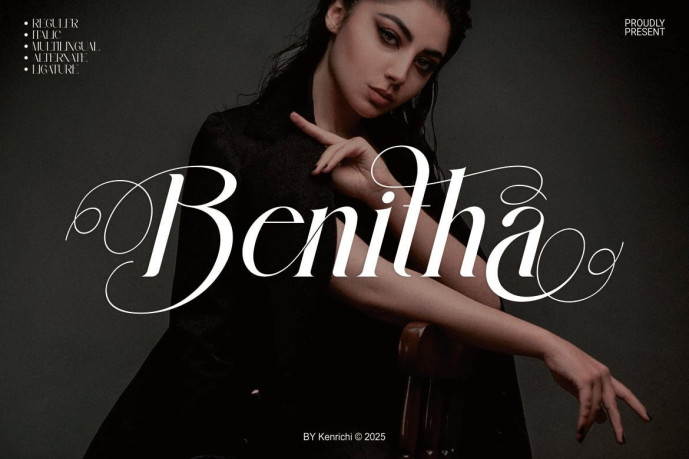
Benitha Font
Designer: Kenrichi
Benitha Font We are proud to present our new Benitha Font product Benitha Font is a modern and authentic font.Perfect for professional and branding needs of a product.This font is suitable for any branding project such as quotes, logos, blog headers, posters, banners, letters, invitations, stationery,etc. Designed as a versatile and flexible tool that can be used on a range of projects and media.exceptional in a wide range of contexts.